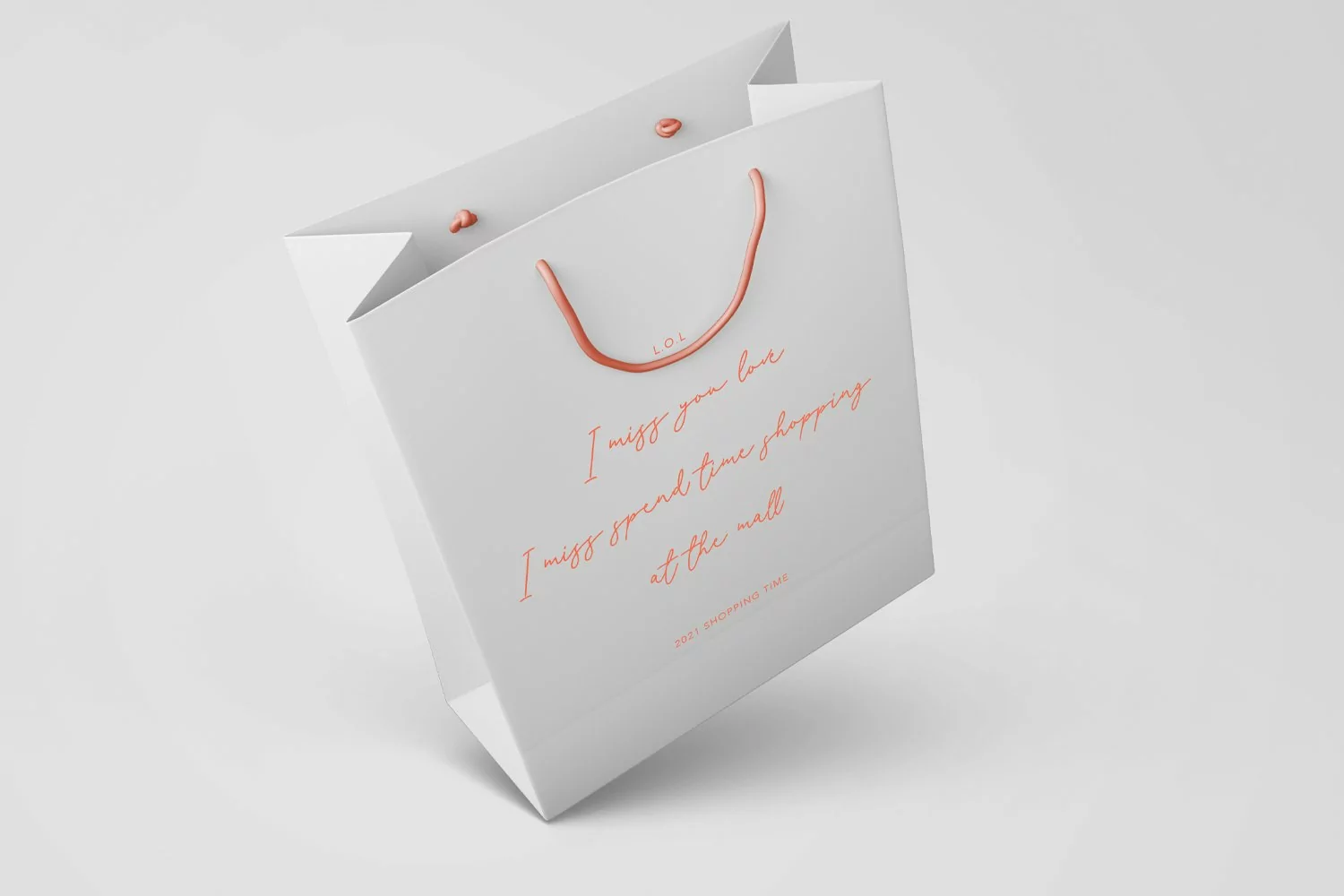
Give your designs an authentic handcrafted feel. "Boillers Simply Handwritten Font" is perfectly suited to signature, stationery, logo, typography quotes, magazine or book cover, website header, clothing, branding, packaging design and more.